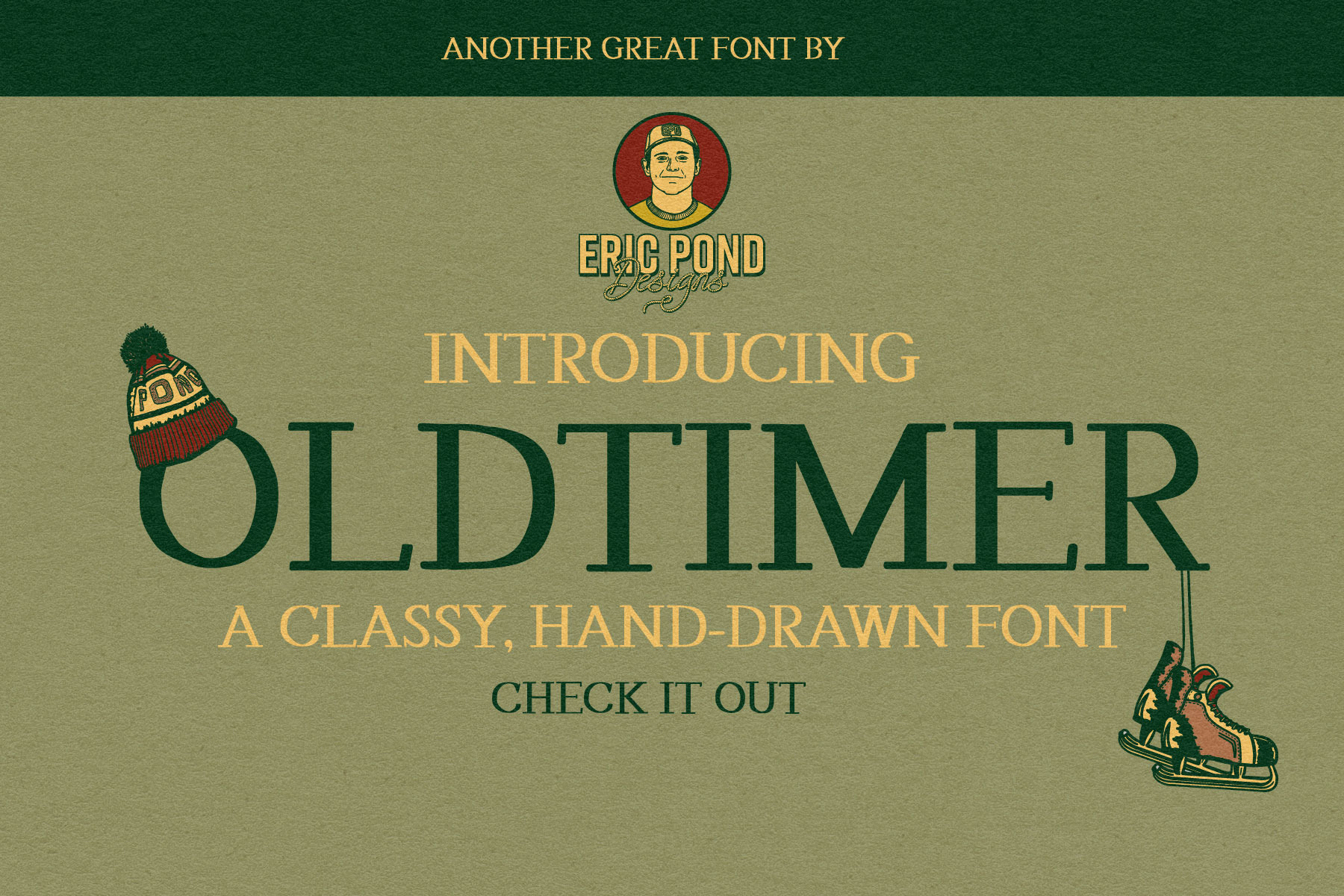
Oldtimer - A Classy, Hand-drawn Font
Introducing Oldtimer, a classy hand-drawn font by Eric Pond Designs. This font includes uppercase, numbers and some punctuation.